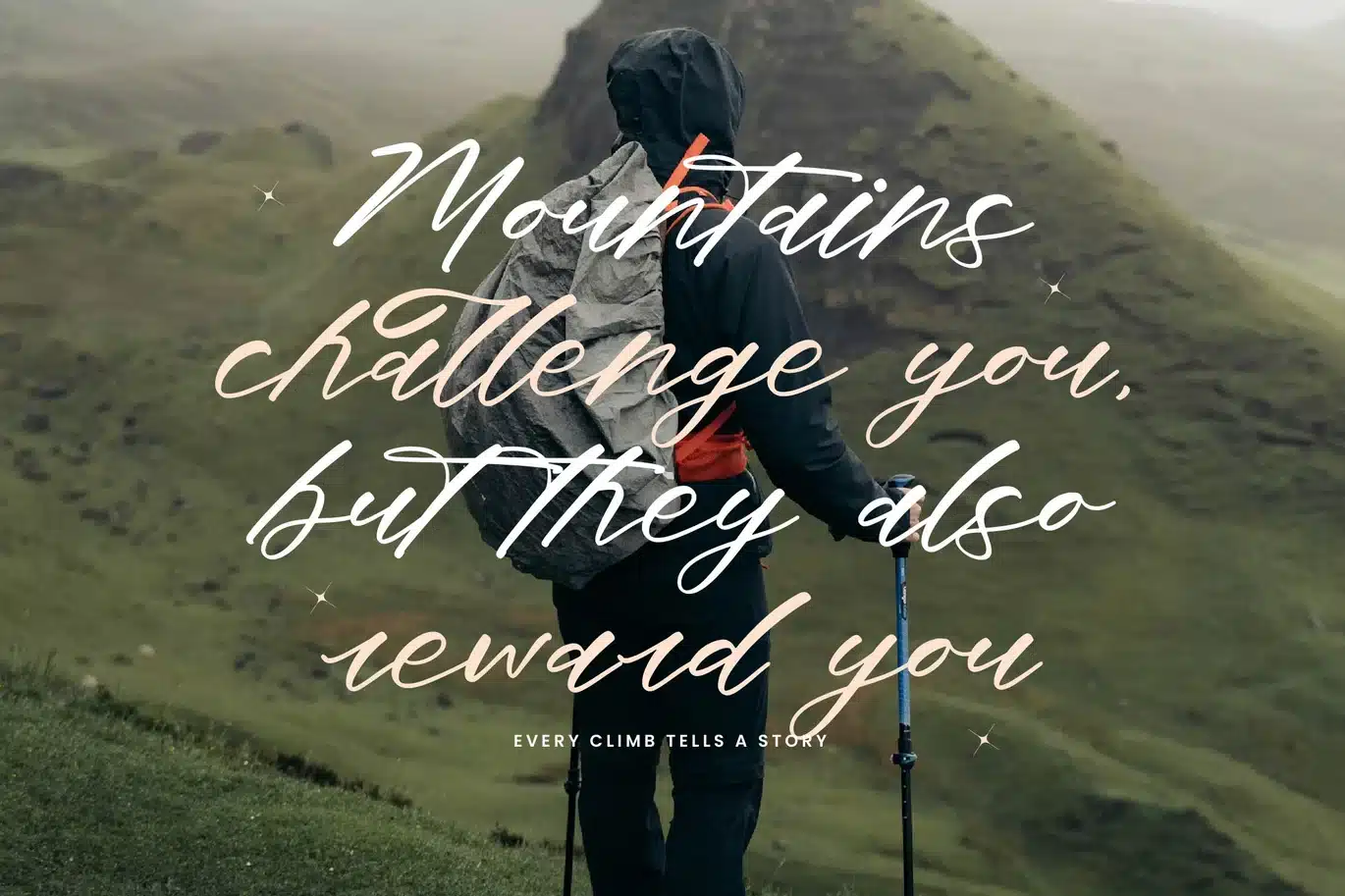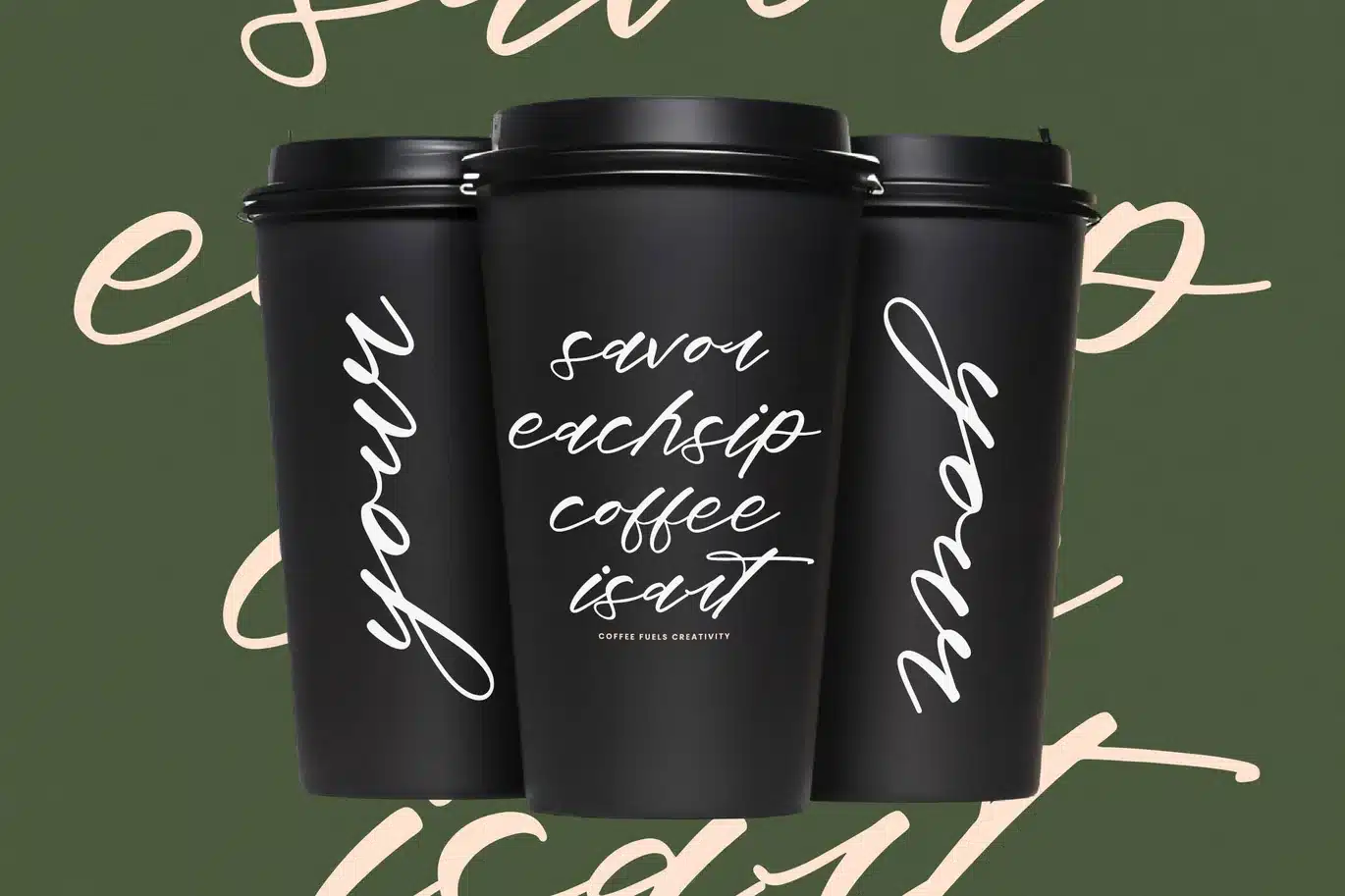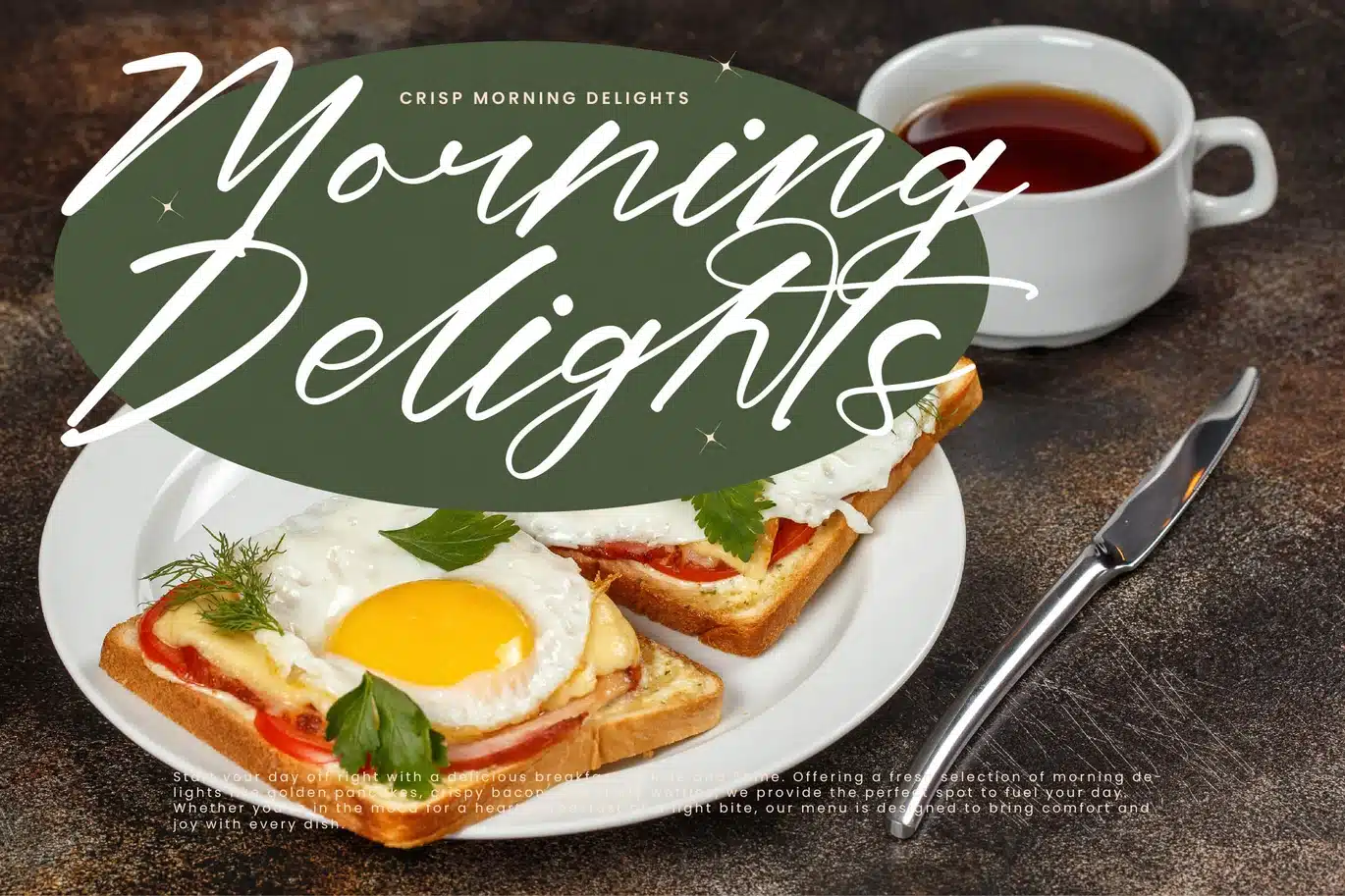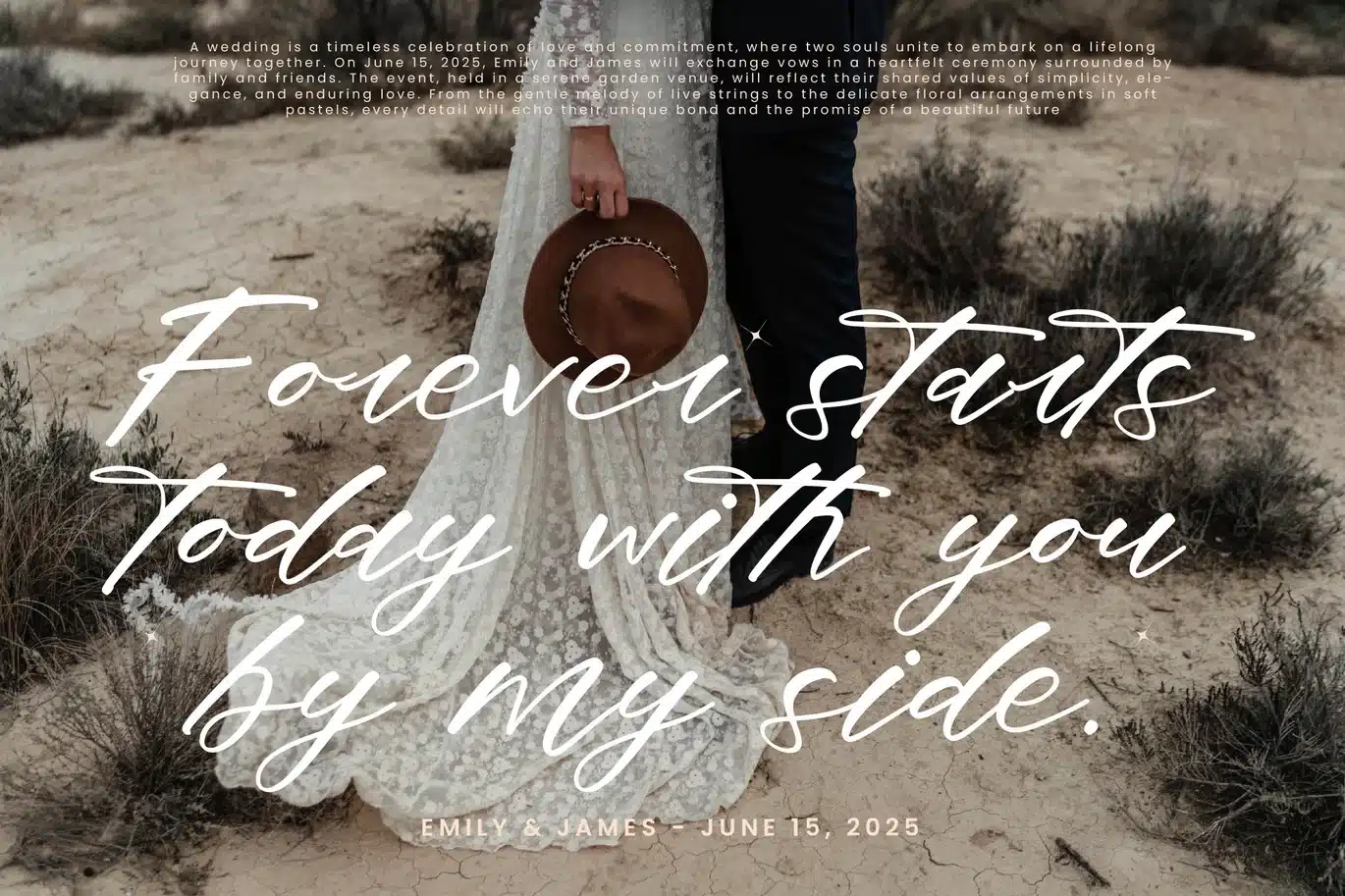
Dream Routes – Modern Calligraphy Script Font
Dream Routes - Modern Calligraphy Script
Dream Routes is a modern calligraphy script that blends elegance, creativity, and authenticity in every stroke. With its flowing ligatures, expressive alternates, and graceful swashes, this typeface is perfect for projects that need both sophistication and personality. Featuring 155 ligatures, 52 alternates, and a total of 539 glyphs, Dream Routes provides designers with endless flexibility to craft unique, customized lettering compositions.
This font excels in branding. Ideal for logos, boutique shops, artisan products, fashion labels, and lifestyle packaging, Dream Routes communicates refinement and originality. Its calligraphic charm ensures that branding projects feel stylish, elegant, and memorable, making it a top choice for premium and creative industries.
In editorial and publishing, Dream Routes adds and charm. Magazines, book covers, creative zines, and lifestyle features benefit from its smooth calligraphic flow. It creates editorial layouts that balance elegance with readability, turning text into visually captivating design elements.